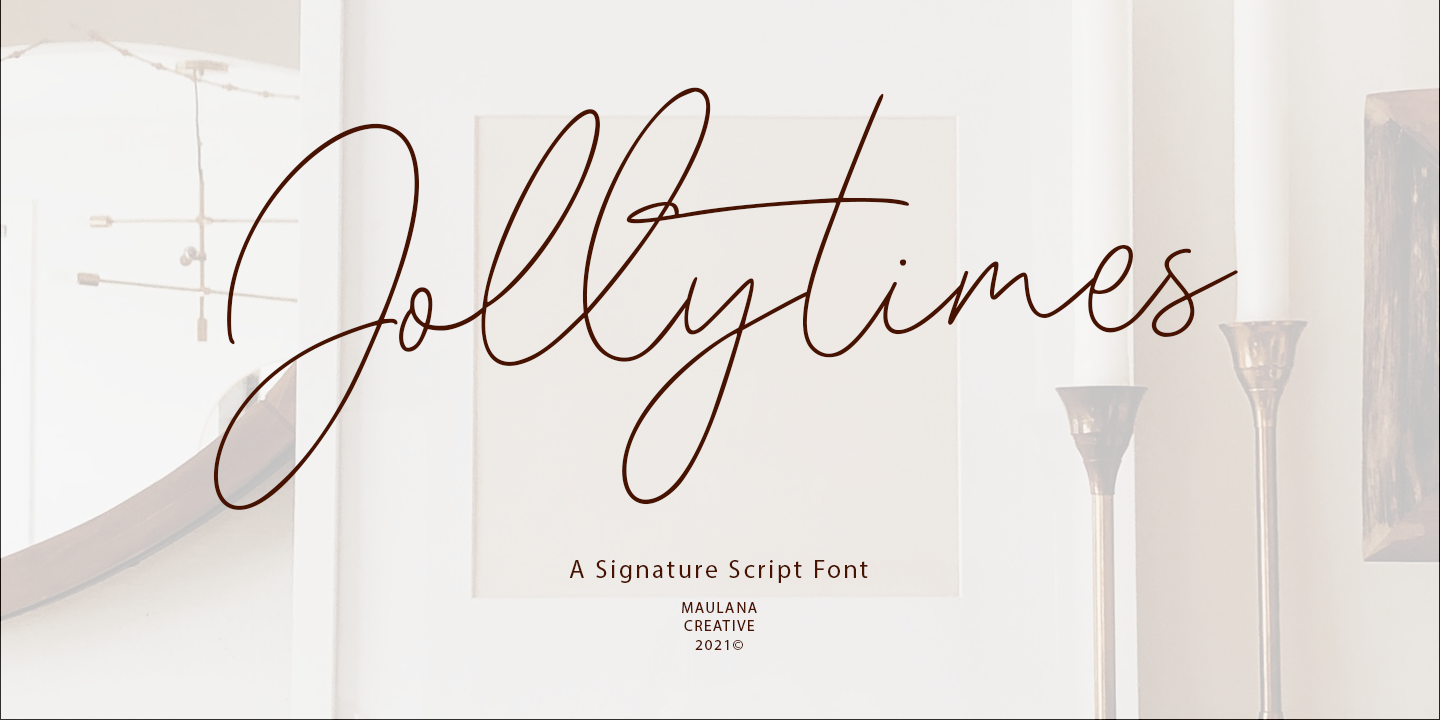
Jollytimes Font is ideal for festive event promotions, holiday marketing campaigns, party invitation designs, celebration signage, cheerful greeting cards, fun social media graphics, joyful children's materials, happy birthday themes, seasonal celebrations, and uplifting community communications. This exuberantly cheerful display typeface brings infectious joy and celebratory spirit to festive design applications.
What makes Jollytimes Font so exciting is its extraordinary ability to capture the pure essence of celebration and unbridled happiness through letterforms that practically bounce with festive energy and contagious enthusiasm. The font features jubilantly crafted characters with playful proportions and spirited details that instantly evoke the excitement of parties, holidays, and special occasions that bring people together in joy. Its distinctive characteristics include bouncy baseline variations, cheerful stroke weights, and exuberant spacing that mirror the rhythmic energy of celebration music and the infectious laughter that defines the happiest moments in life. The font's inherently festive personality and proven ability to instantly elevate mood make Jollytimes Font perfect for brands and communications seeking to spread happiness, create memorable celebrations, and communicate the pure joy that makes life's special moments truly unforgettable.
The Jollytimes Font family includes multiple celebratory variations: Regular, Bold, Light, and Extra Festive versions with joyful character sets. The comprehensive character collection encompasses complete Latin alphabet support with party-inspired alternates, celebratory numerals, festive punctuation marks, happy symbols, and delightful decorative elements that enhance joyful messaging. Professional features include contextual alternates that maximize celebratory impact, bouncy spacing that creates festive rhythm, cheerful character construction that ensures maximum happiness, and party details that add authentic celebration atmosphere without compromising readability across different festive applications and promotional materials.
Whether you're creating holiday campaigns, party promotions, or celebratory communications that honor life's happiest moments and special occasions, Jollytimes Font Free Download provides the irresistibly joyful typography that transforms ordinary announcements into invitations to celebration and happiness. Its exceptional festive character makes it perfect for event planners, entertainment companies, and celebration-focused businesses where creating joy and memorable experiences are essential for customer satisfaction and community engagement, while its cheerful construction ensures professional presentation that maintains reliability alongside maximum celebration spirit. The font's combination of infectious happiness and professional functionality makes it invaluable for designers working with entertainment brands, holiday campaigns, and any project seeking to communicate the pure joy, festive celebration, and contagious enthusiasm that makes special occasions truly magical and creates lasting memories of happiness and togetherness for people of all ages.